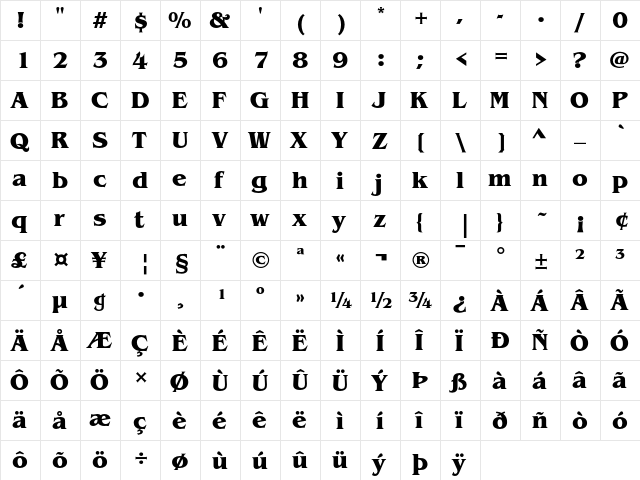
ITC Benguiat Bold
Design Context for ITC Benguiat Typeface
ITC Benguiat offers clean, dependable letterforms without strong stylistic allegiance, making it a practical choice for designers who need flexibility. The heavy weight commands attention and anchors typographic hierarchies.